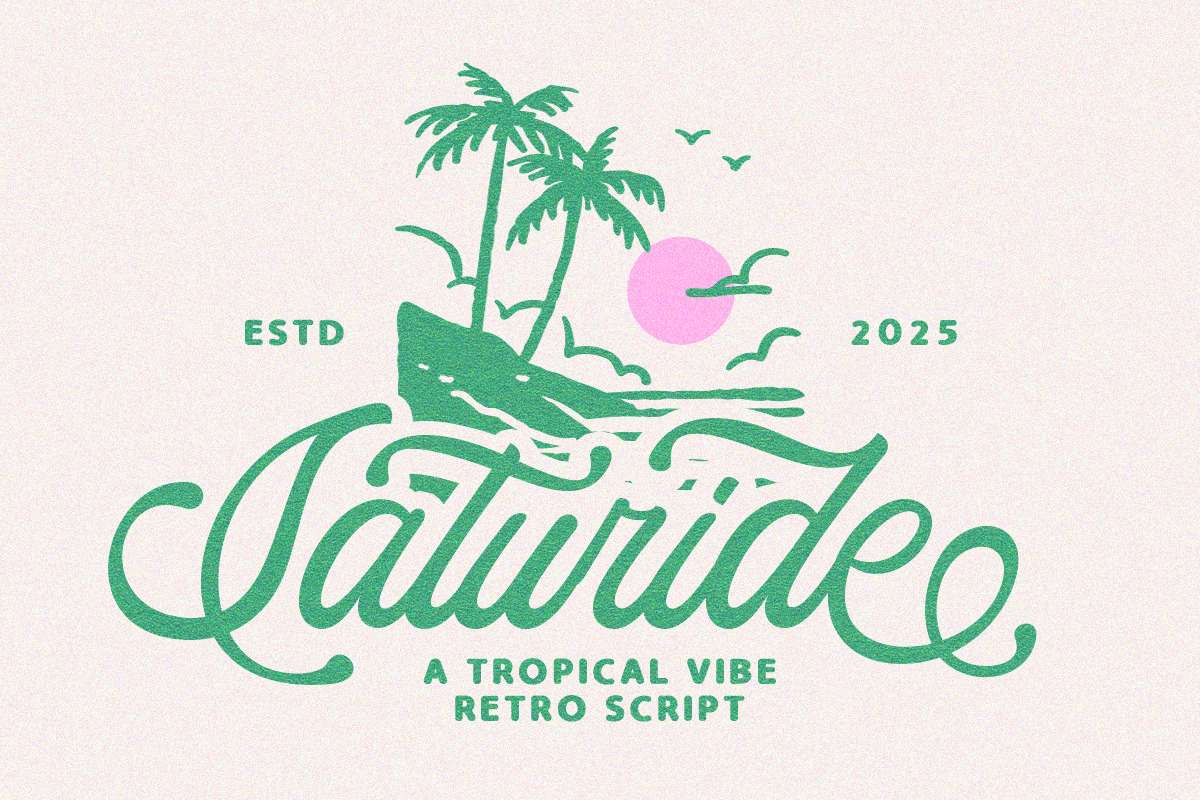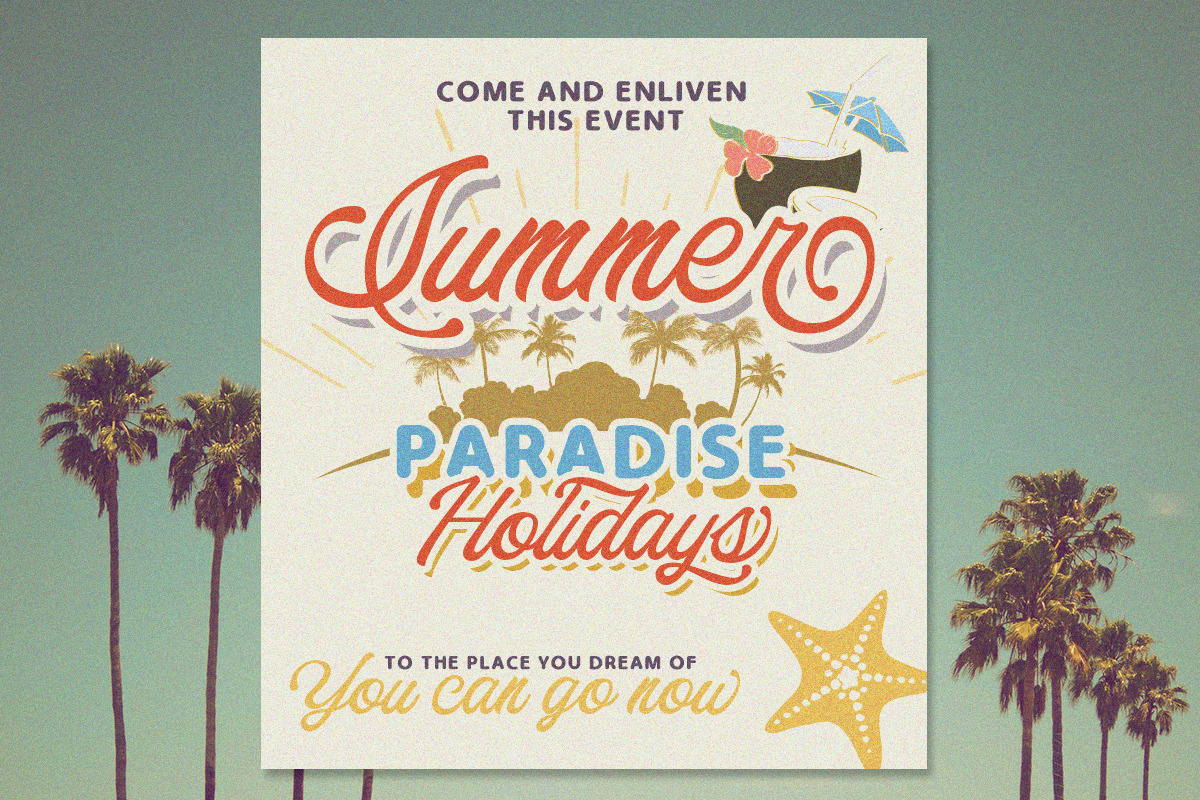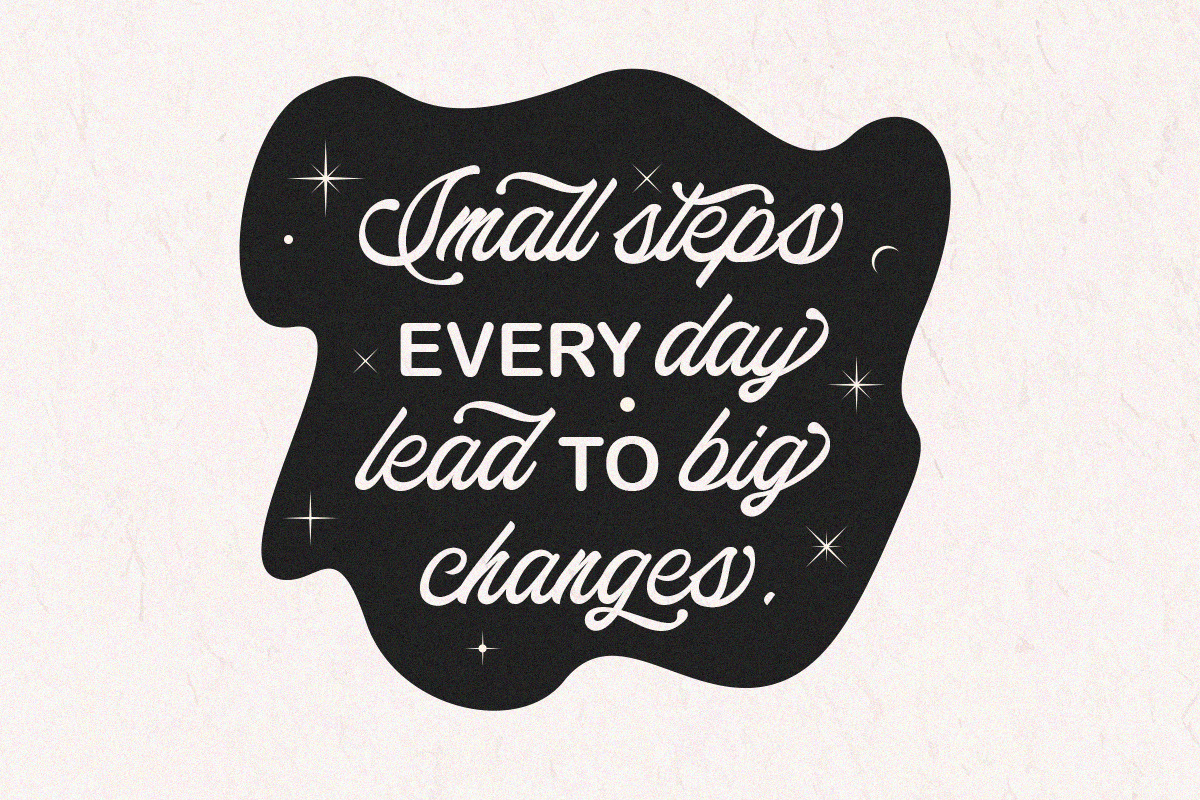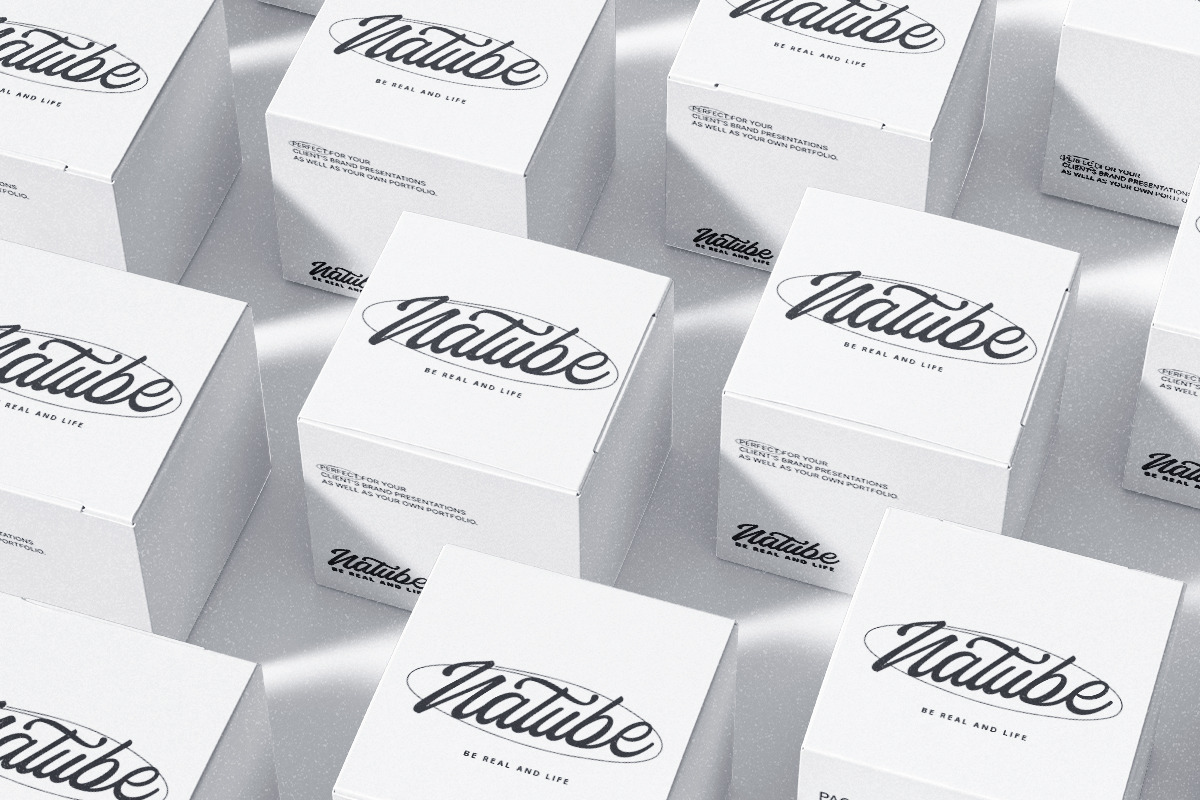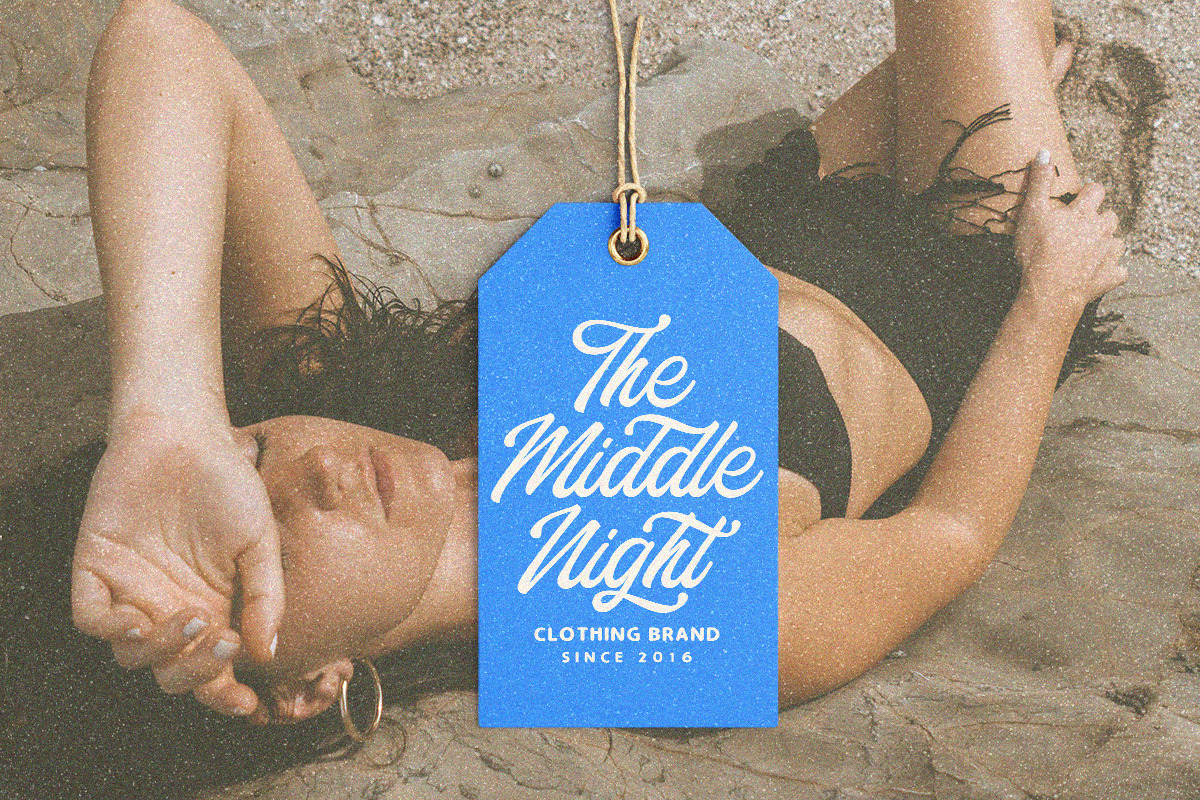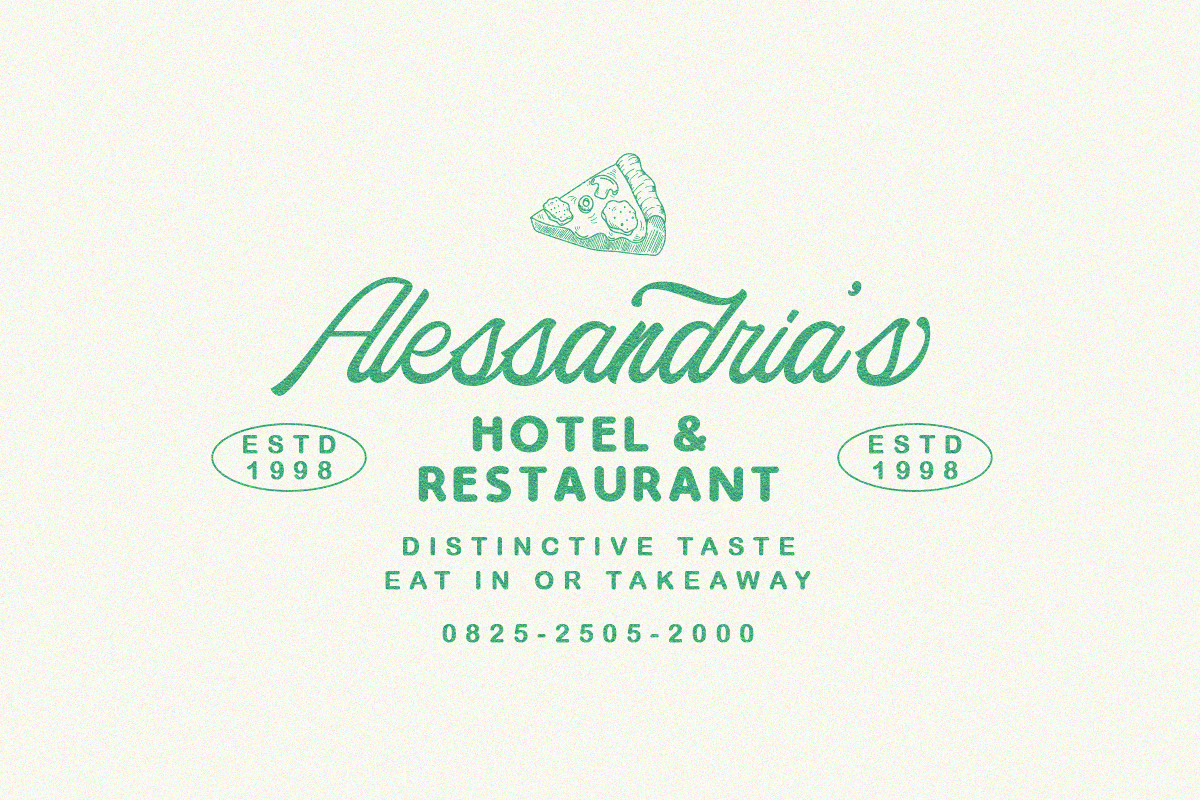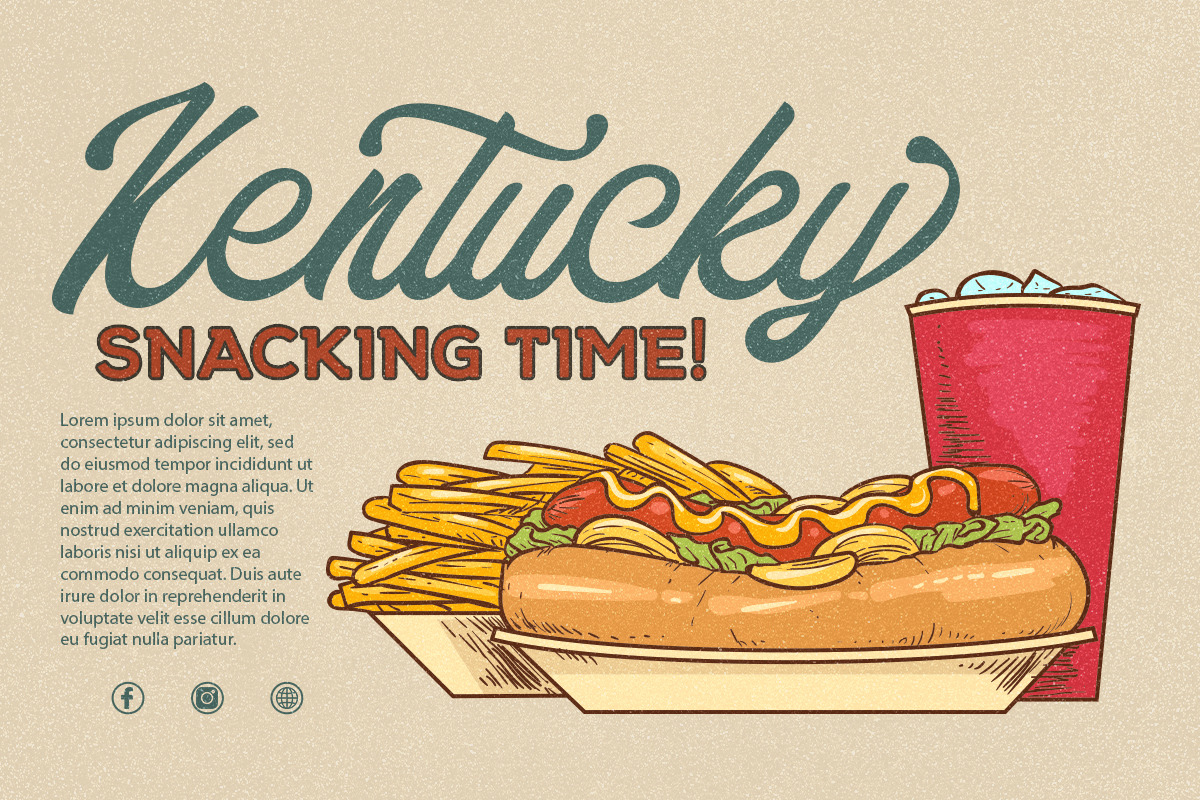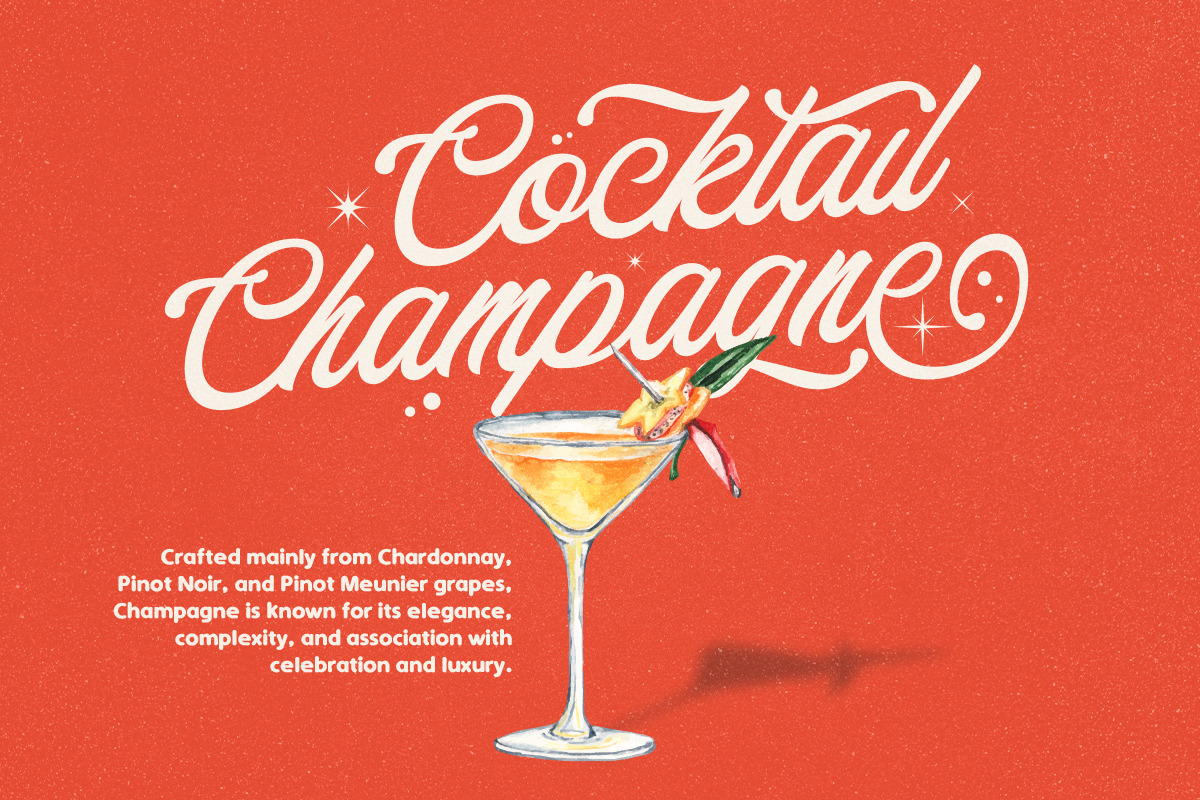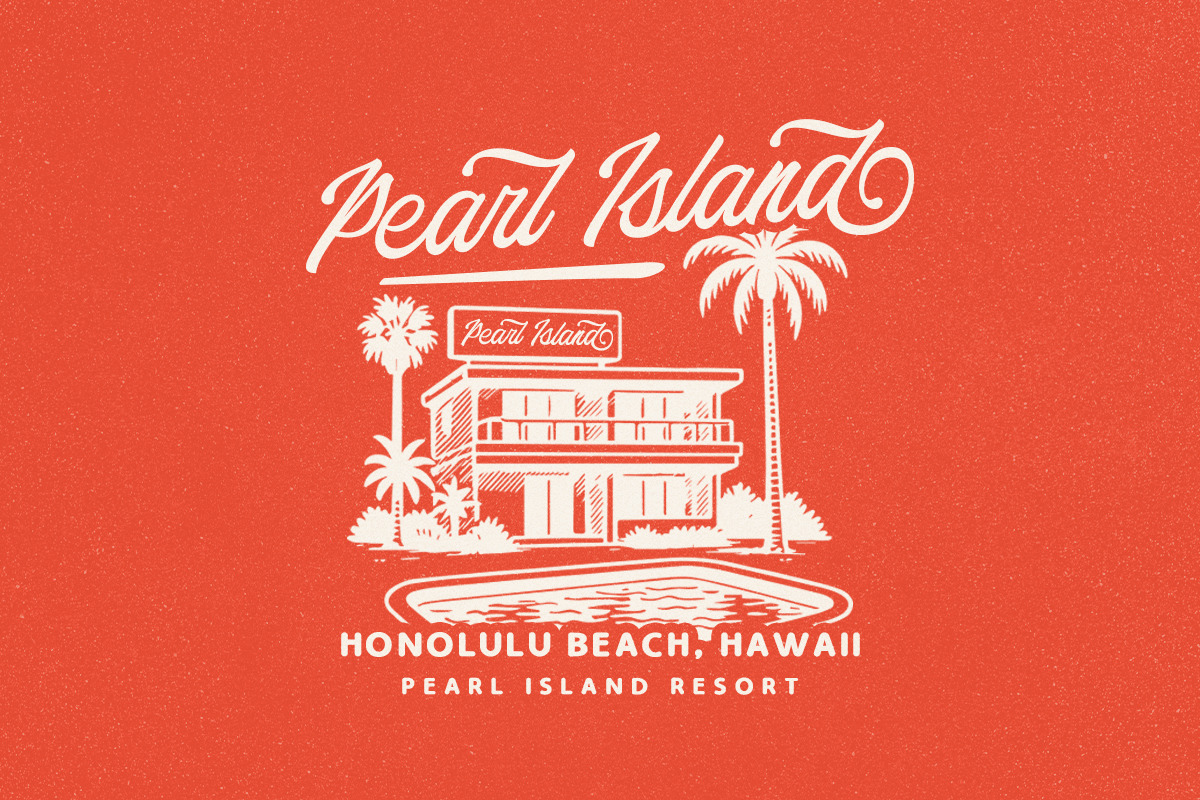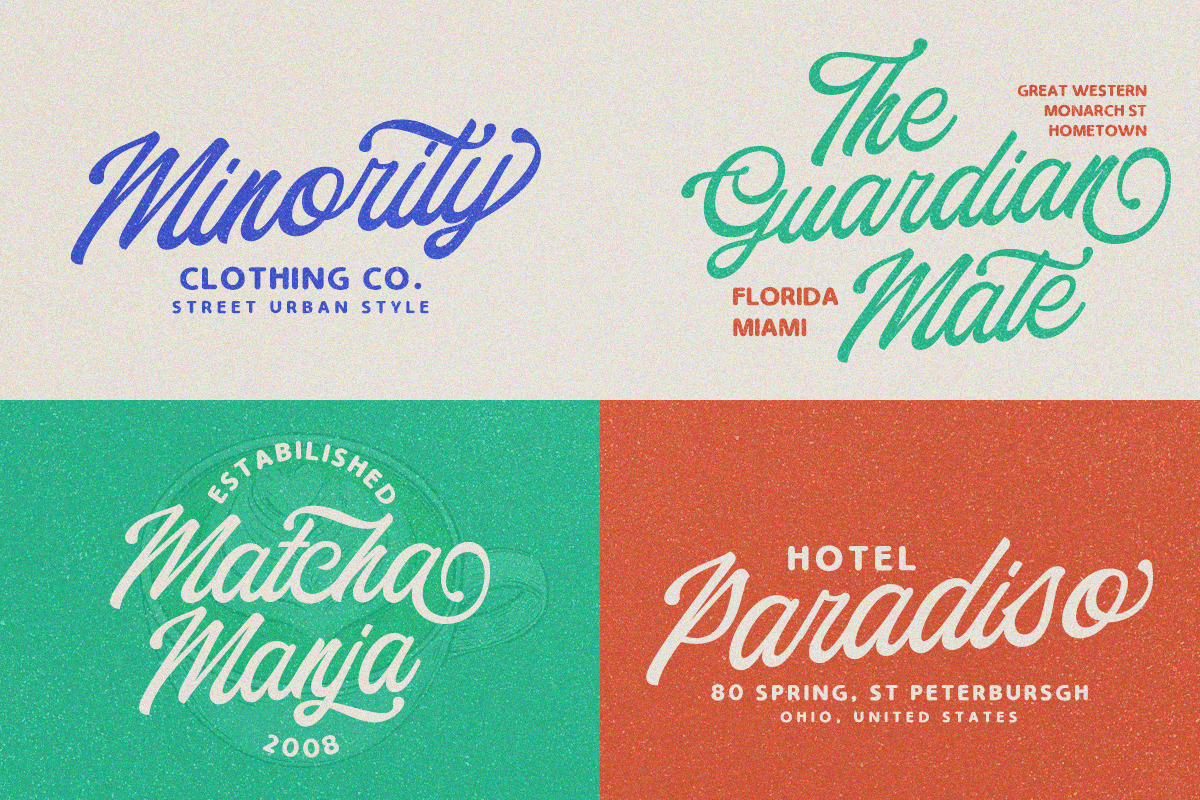
Saturide Script Font
Saturide Script Inspired by Modern Vintage & Retro styles and a combination with old American traditional style.
Saturide Script allows you to create handwritten letters instantly and very practical. Ideal for logos, handwritten quotes, product packaging, headers, posters, merchandise, social media & greeting cards.